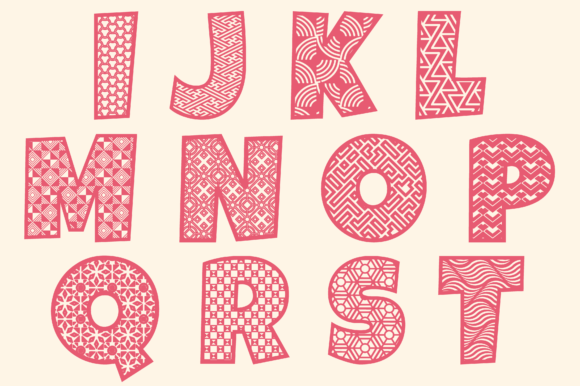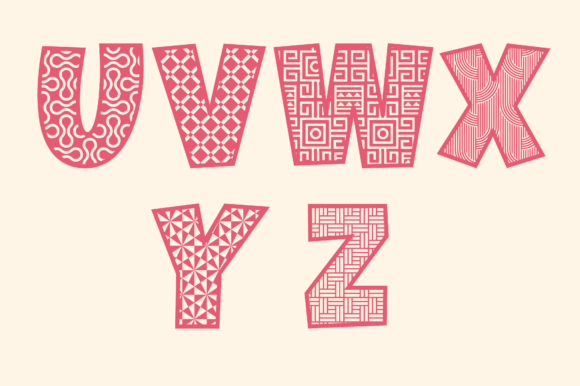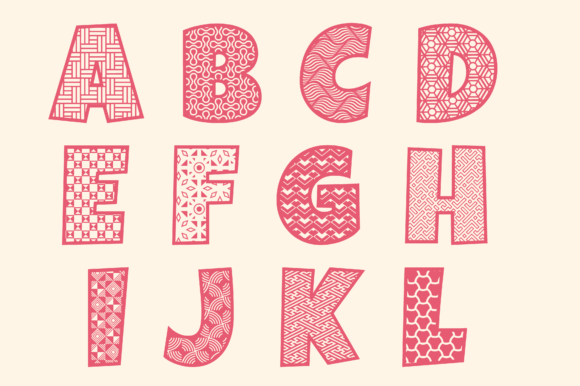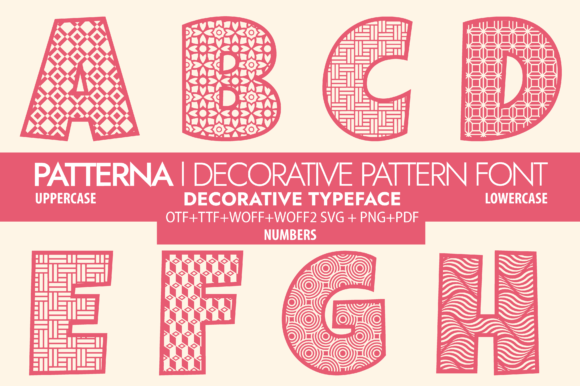
Introduction to Patterna Font
Patterna is a uniquely designed and chic decorative font.
It features thick letters and cute touches and it most certainly will elevate a wide range of creations .
Patterna Font offers exceptional quality and versatility, making it a valuable addition to your design toolkit. Whether you’re creating for personal projects or commercial use, Patterna Font delivers professional results.